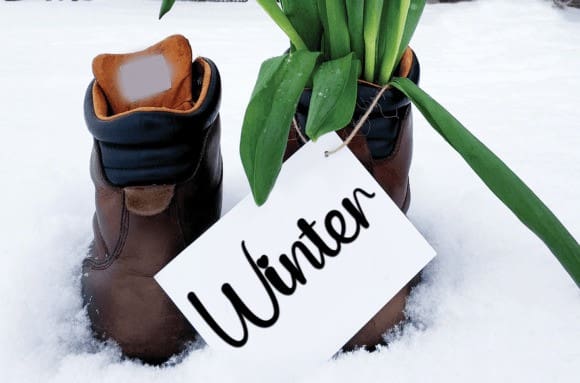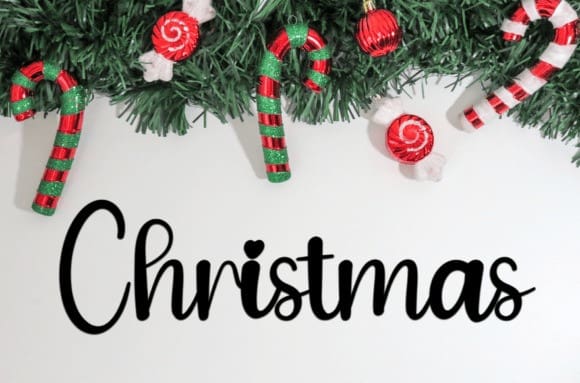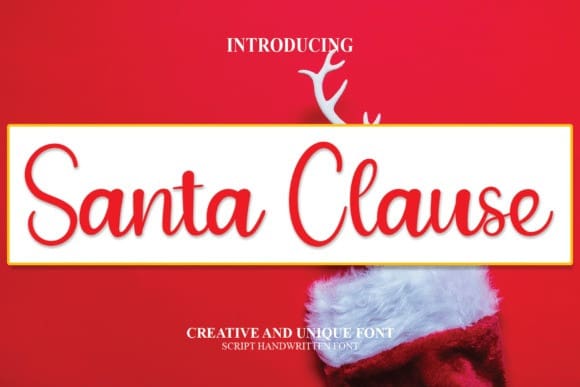
Santa Clause Typeface
Santa Clause Typeface is a sweet and friendly handwritten font. Fun and relaxed, this font is ideal for writing wedding invitations, cards, or any other design that might need a joyful touch!